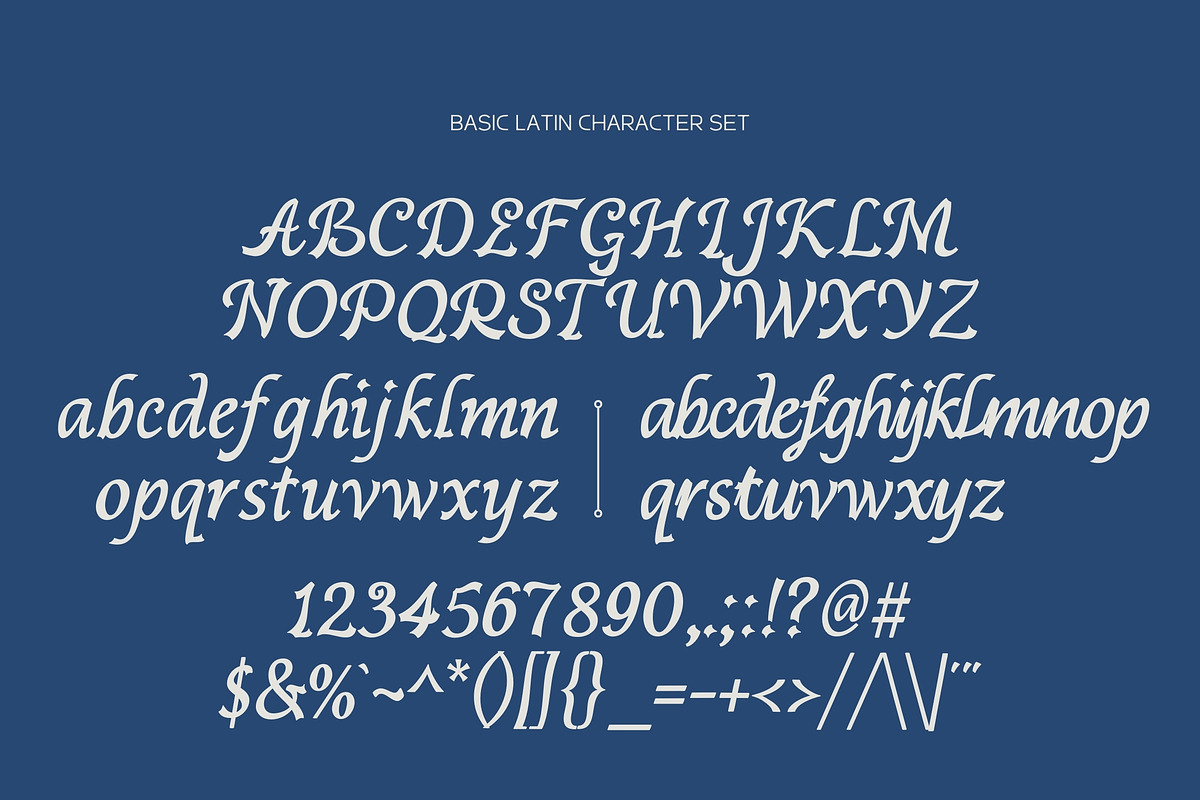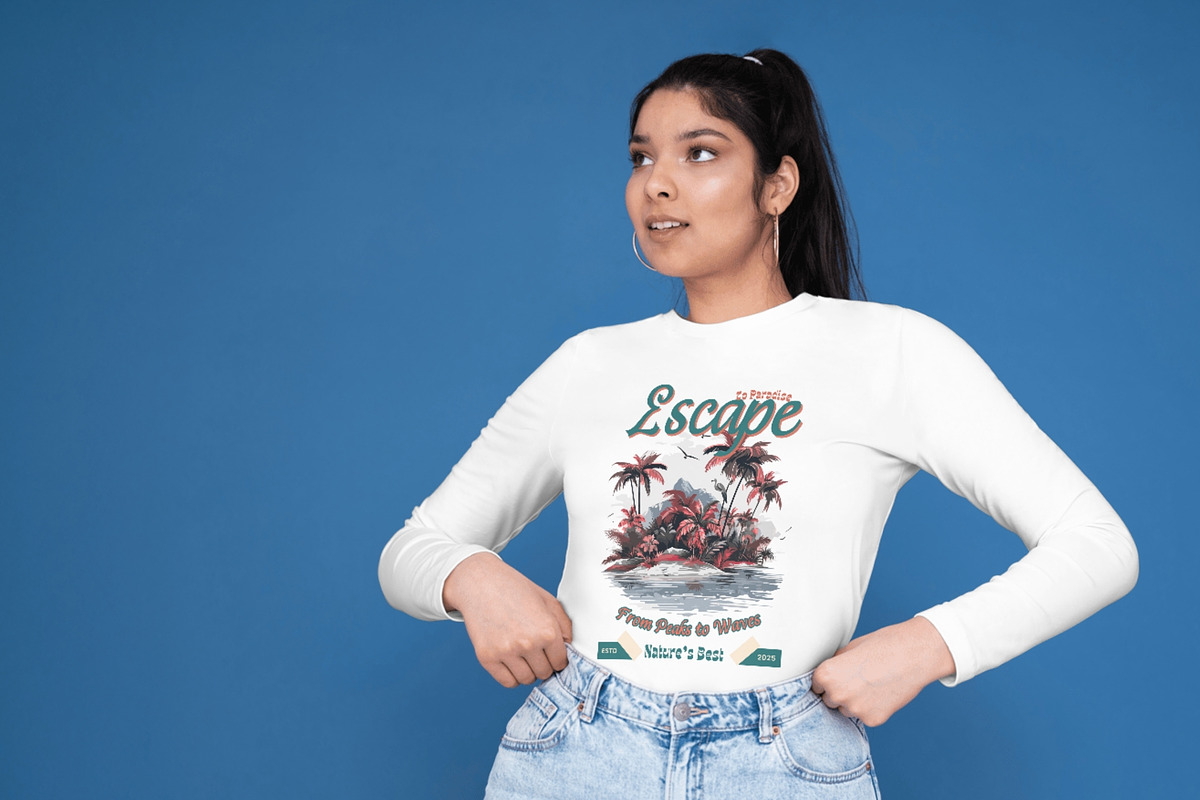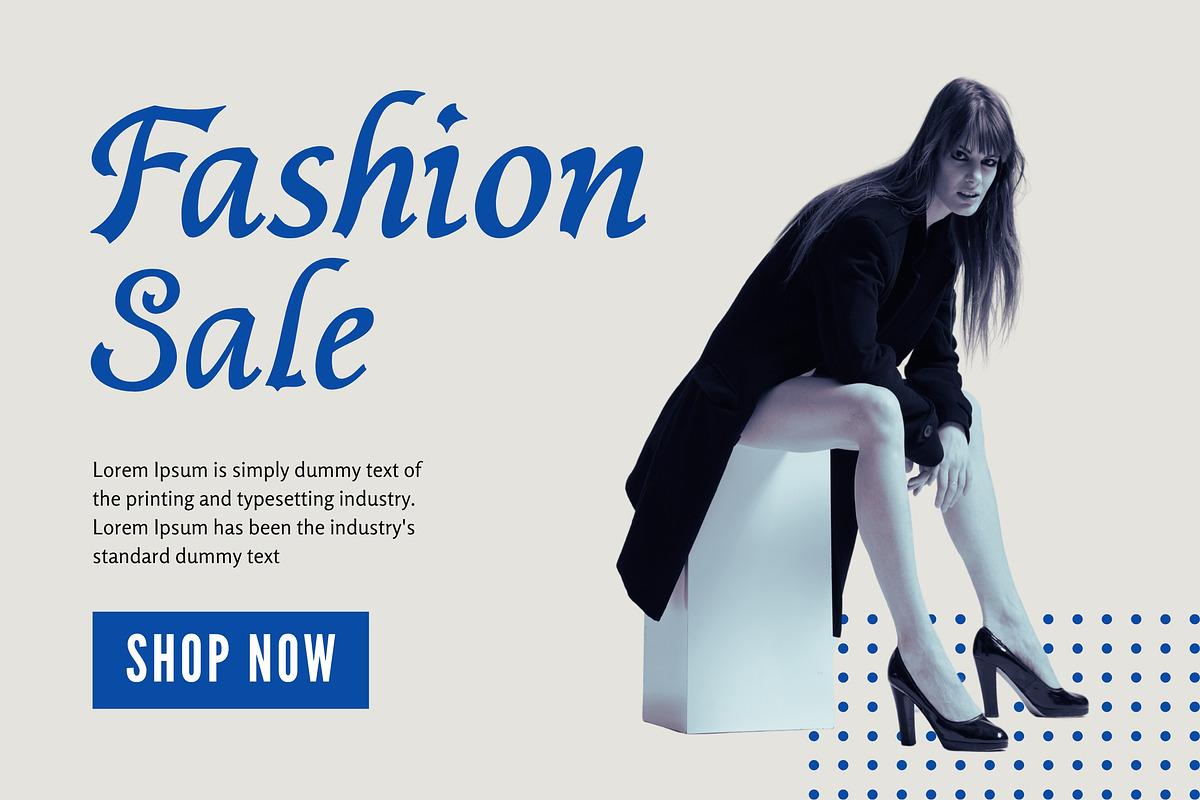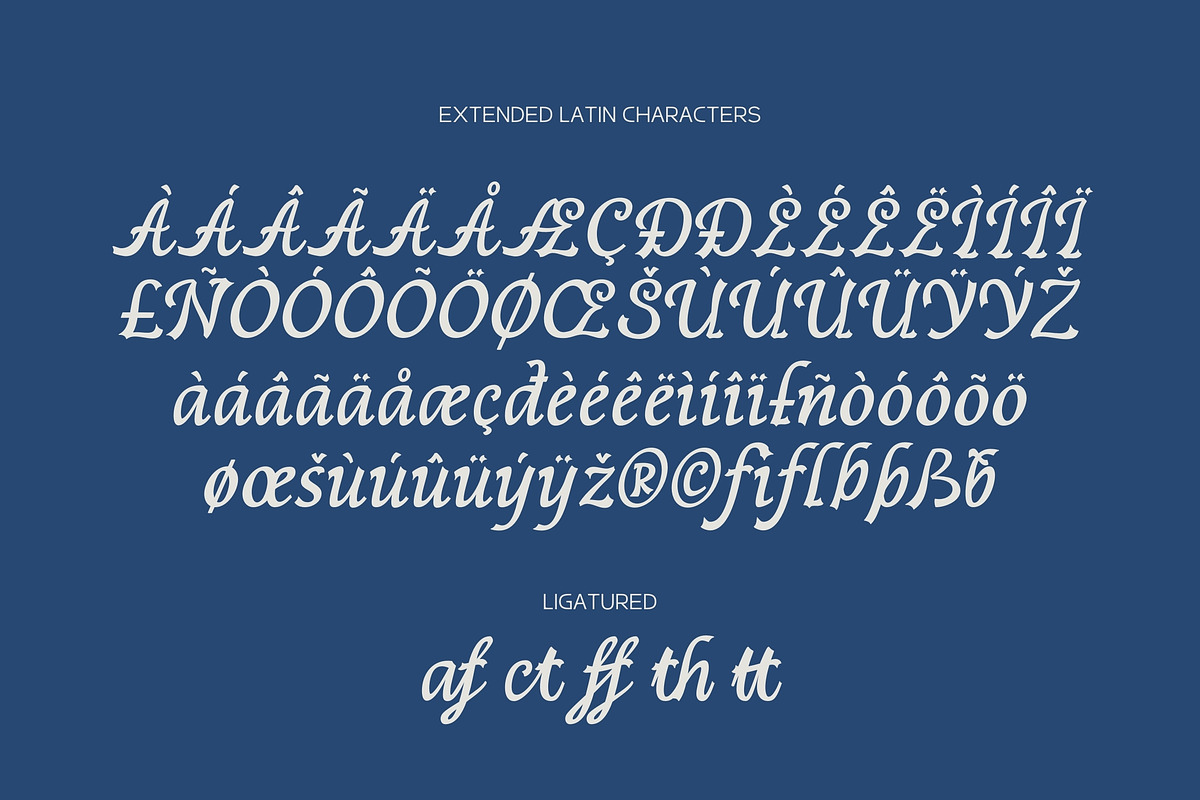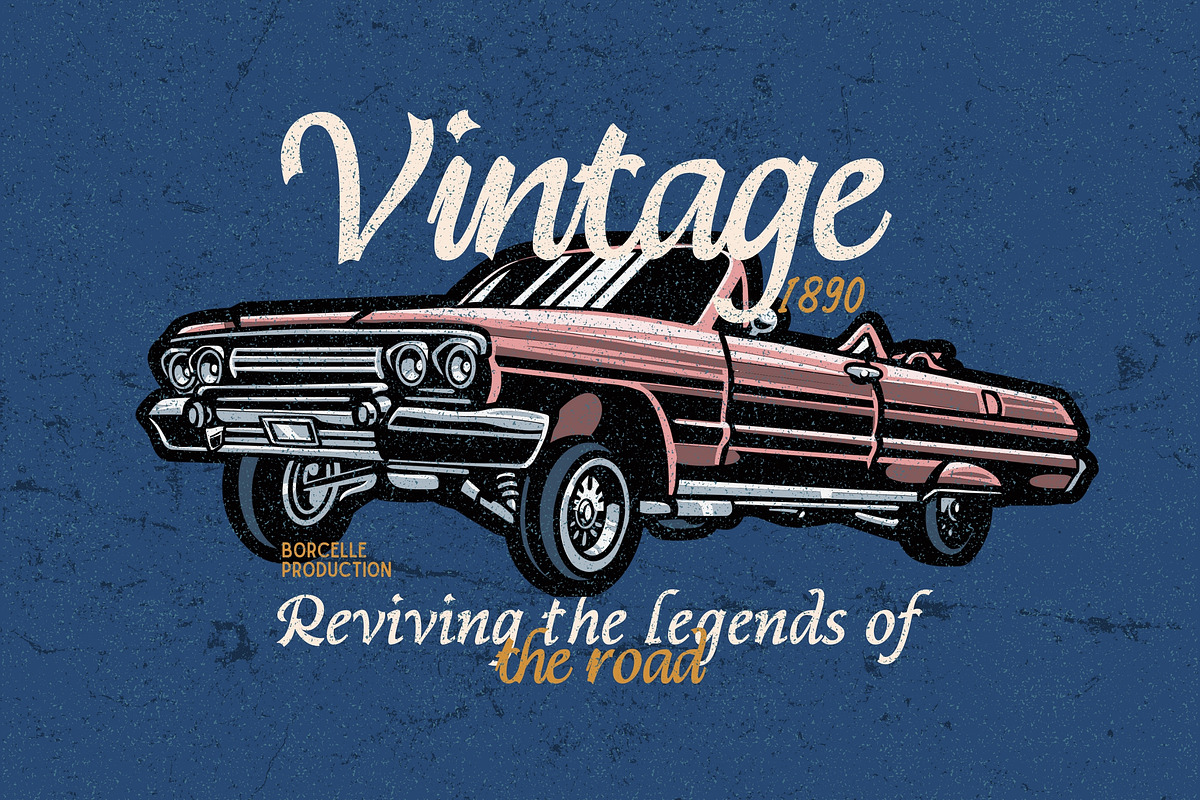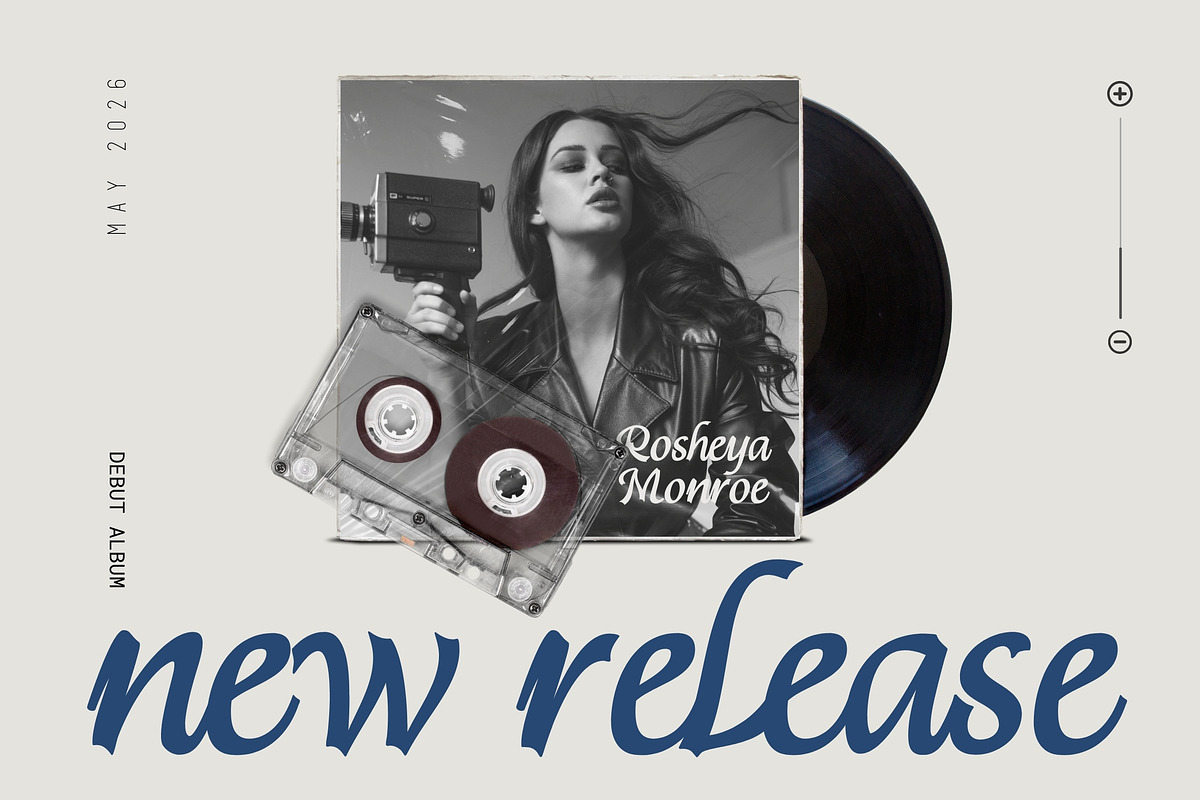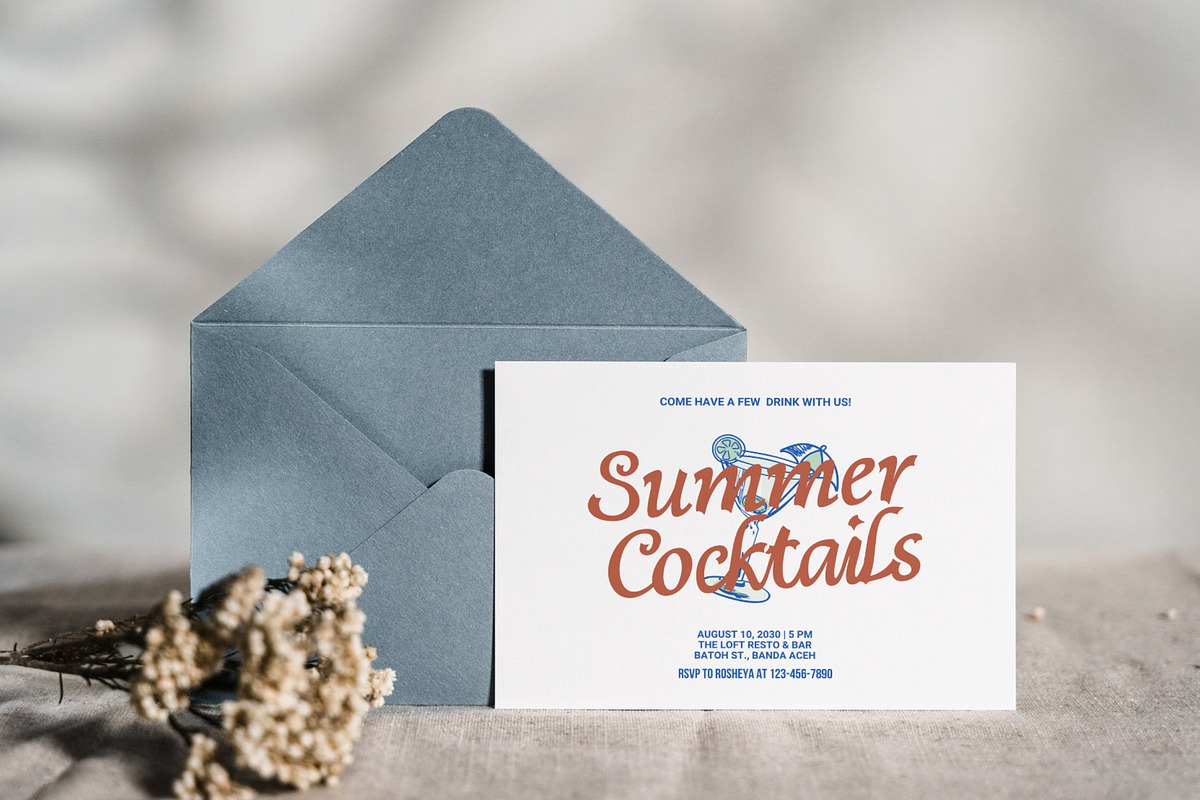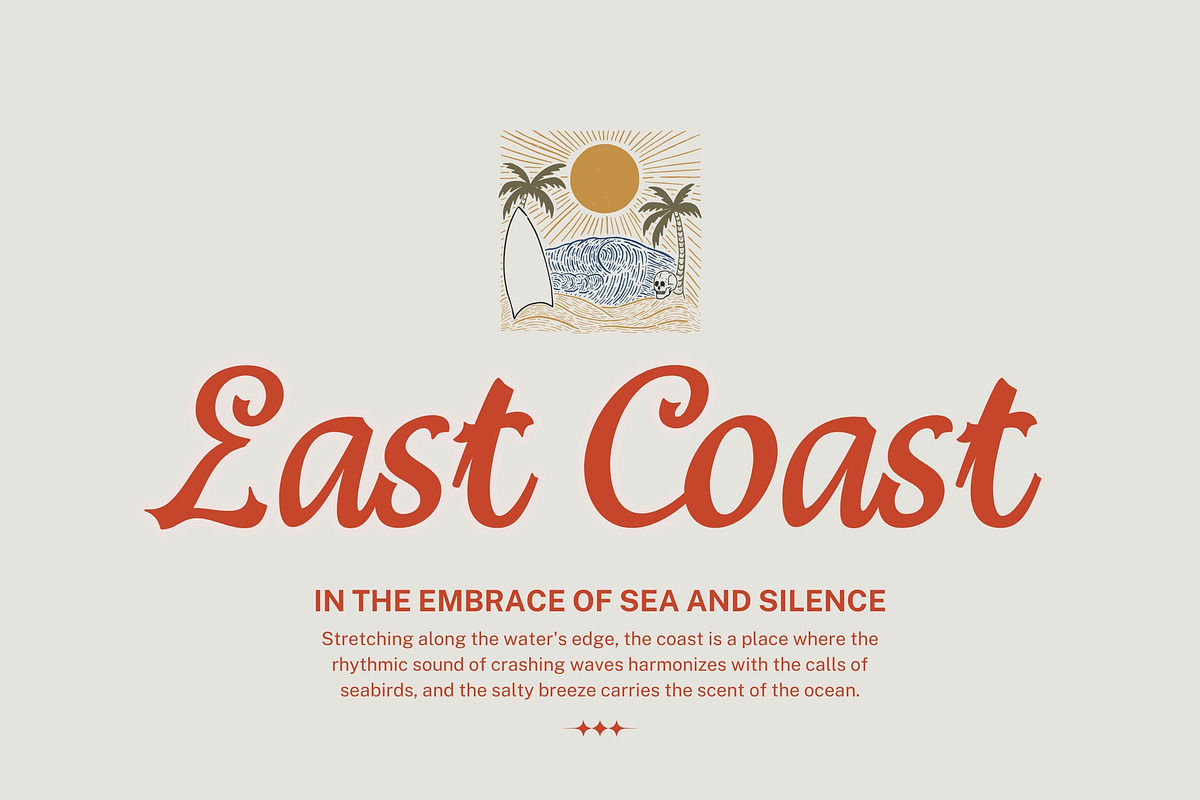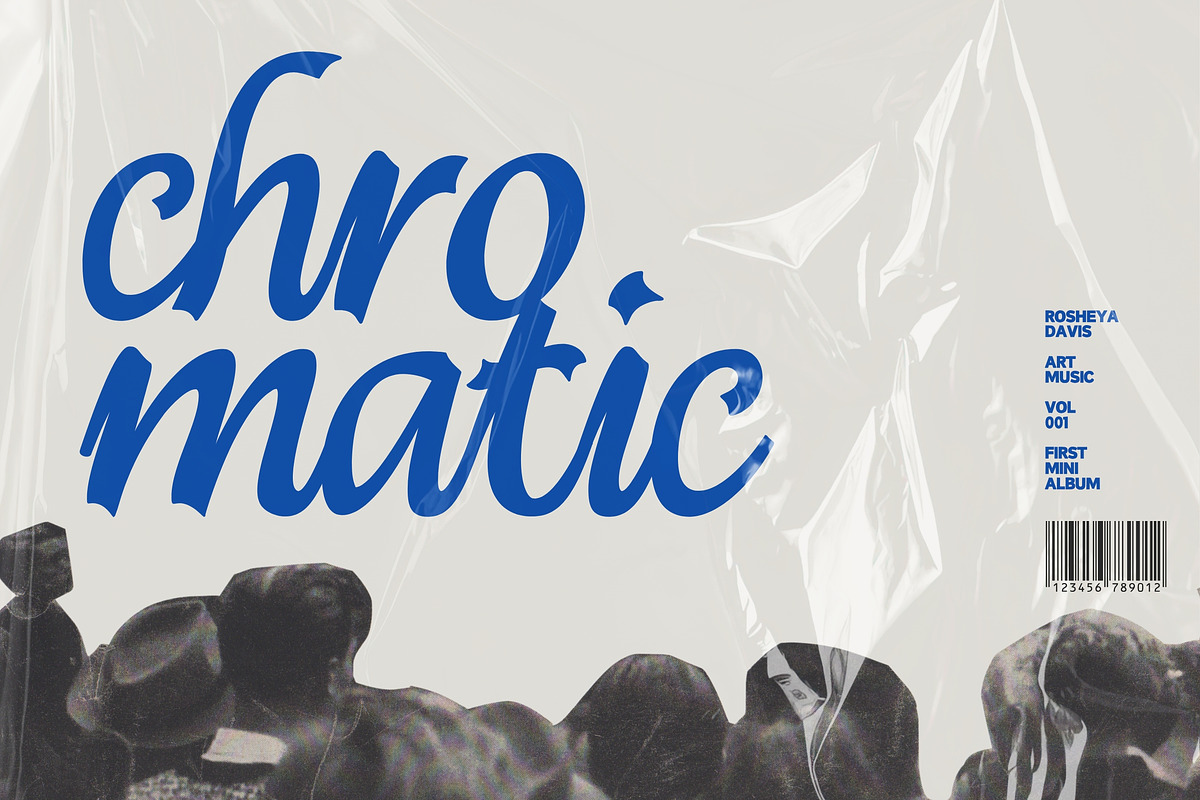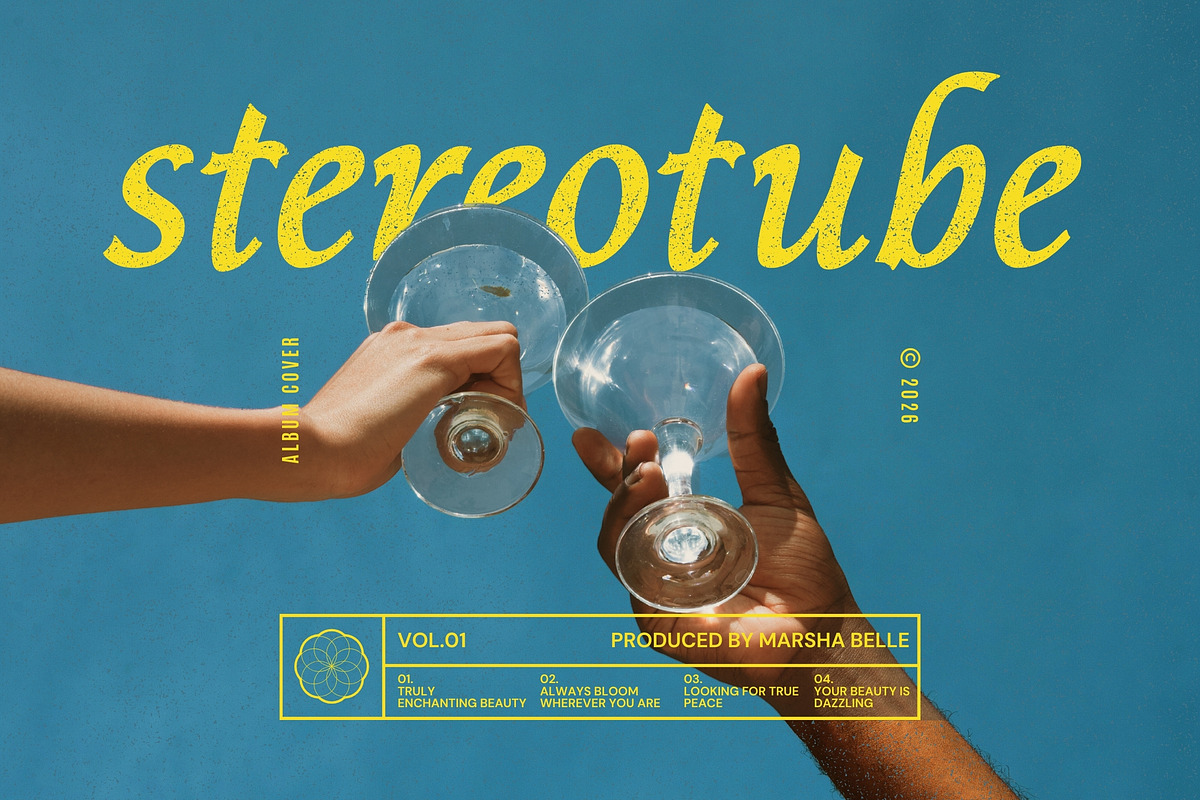
Rosheya
Introducing Rosheya
Rosheya – A Simple Modern Elegant Font
Rosheya is a modern and elegant typeface that beautifully blends simplicity and script style. Designed for those who appreciate clean aesthetics with a graceful touch, Rosheya offers two lowercase versatile styles: a minimal simple font and a flowing semi-script font.
Whether you're working on branding, invitations, packaging, or social media design, Rosheya adds a touch of charm and sophistication to every project. Perfect for modern creatives looking for a font that’s both stylish and timeless.